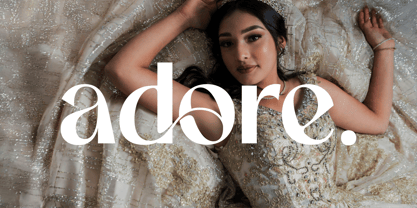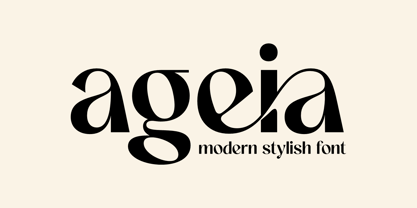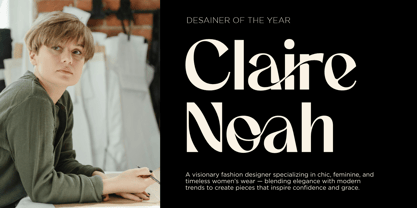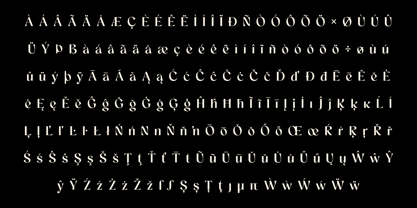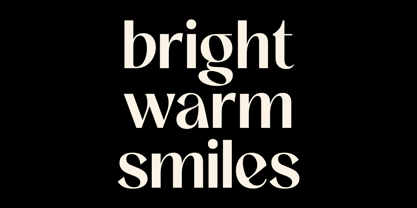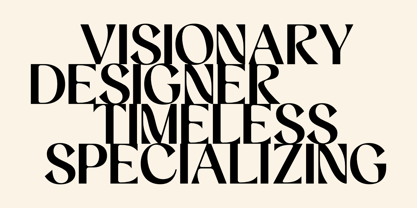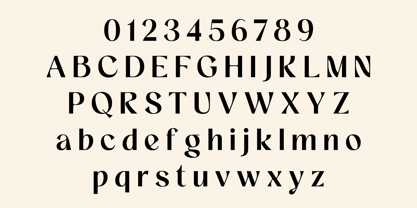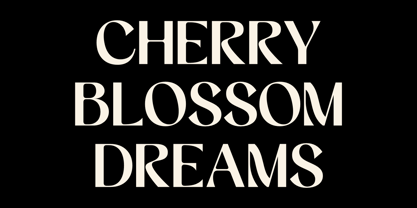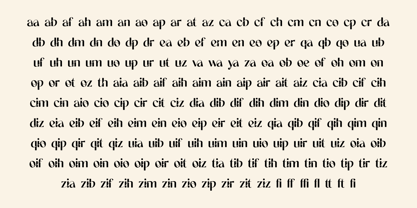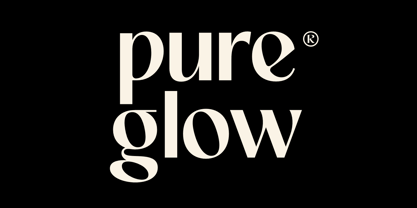
Ageia
Ageia is a contemporary luxury typeface that merges sleek modern aesthetics with subtle retro charm and vibrant tropical elements. This font features sophisticated stylistic ligatures that enhance its unique character and fluidity. Perfectly suited for fashion, branding, and lifestyle projects, Ageia provides a refreshing yet timeless feel, radiating warmth and sophistication while infusing a hint of island breeze. Whether used in editorial layouts or digital applications, Ageia enriches your designs with captivating flair that engages and delights.